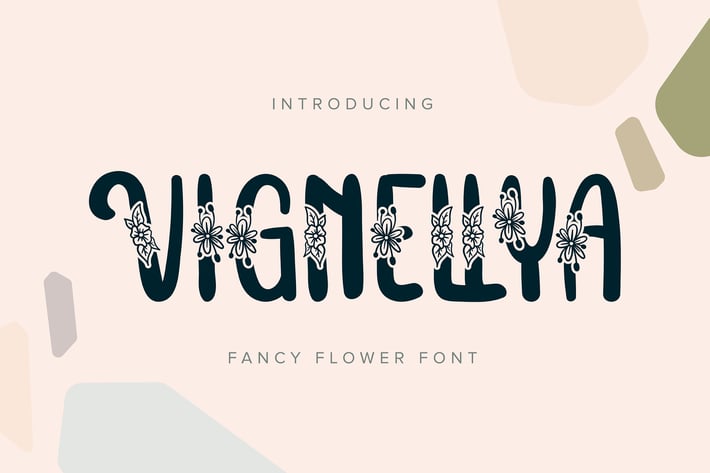
Vignellya | Fancy Flower Font
Vignellya | Fancy Flower Font with a calligraphy style, So beautiful on invitation like greeting cards, branding materials, business cards, quotes, posters, and more!